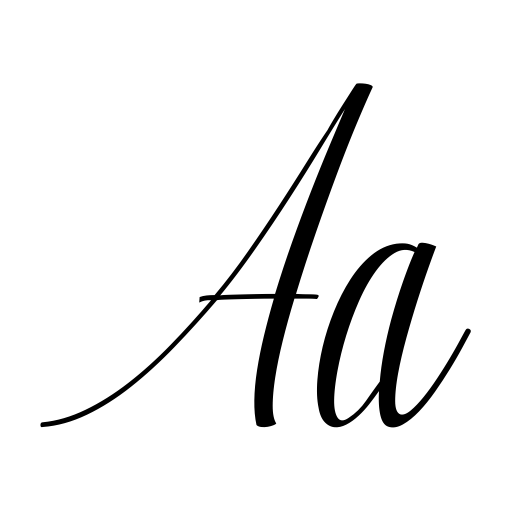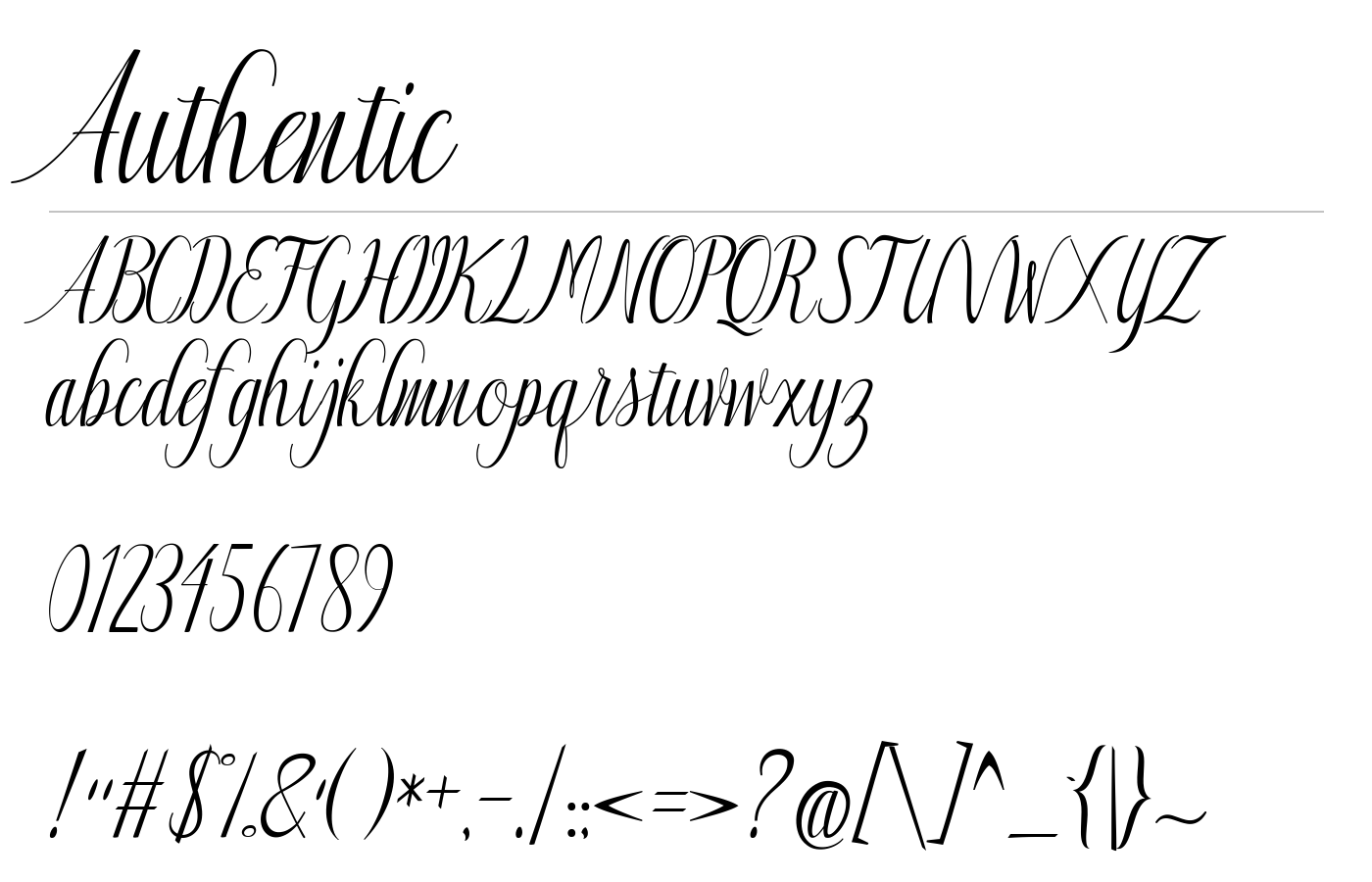
Authentic Font is an elegant script typeface with slender, flowing strokes that evoke a refined and sophisticated feel. Its high contrast and delicate curves give it a graceful and stylish personality, making it ideal for luxury branding, invitations, and classy editorial designs where a touch of refinement is desired.
Authentic Font
About Authentic Font